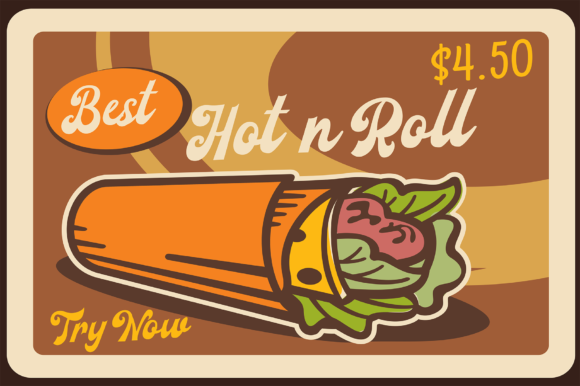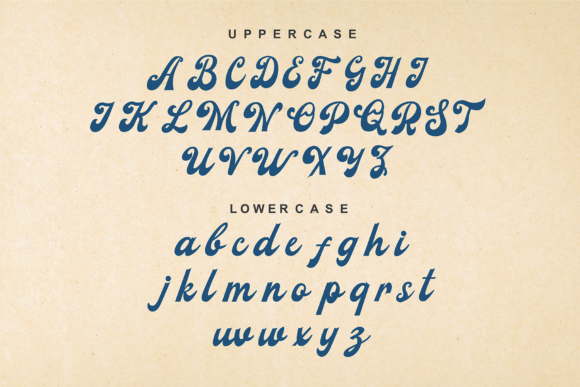
Kaliya Font
db-ku.com - Script & Handwritten -- Kaliya is a gorgeous, cursive and retro styled handwritten font, crafted to give your headlines and logotype projects a stylish touch. This font reads as strong, confident, and dynamic and can add tons of nostalgic character to your designs.